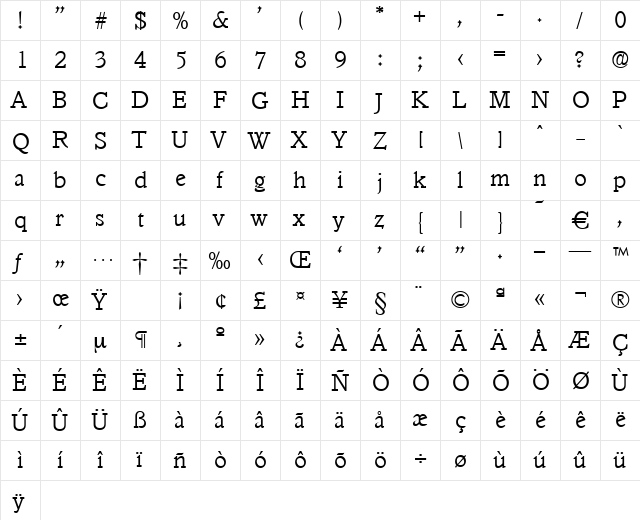
Granada-Xlight Regular Font Preview
Granada-Xlight Regular
Granada-Xlight Regular Font Details
Design Context for Granada-Xlight Typeface
Granada-Xlight offers clean, dependable letterforms without strong stylistic allegiance, making it a practical choice for designers who need flexibility. Its slender proportions lend an understated elegance to any composition.